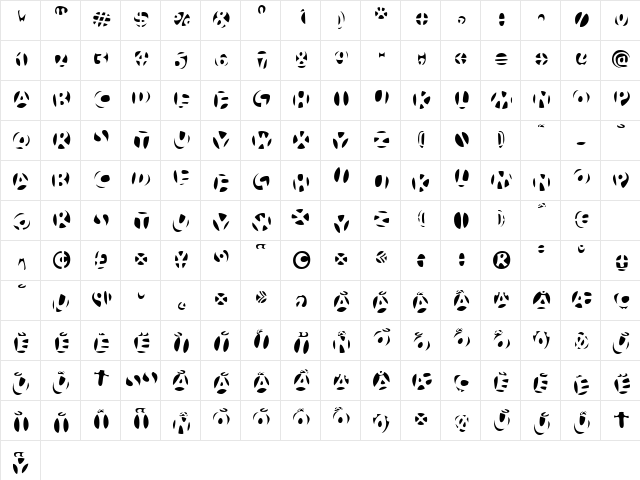
FrutigerStones Negativ Normal
Design Context for FrutigerStones Negativ Typeface
FrutigerStones Negativ is a composed and adaptable typeface that performs quietly and consistently across a wide range of design contexts.